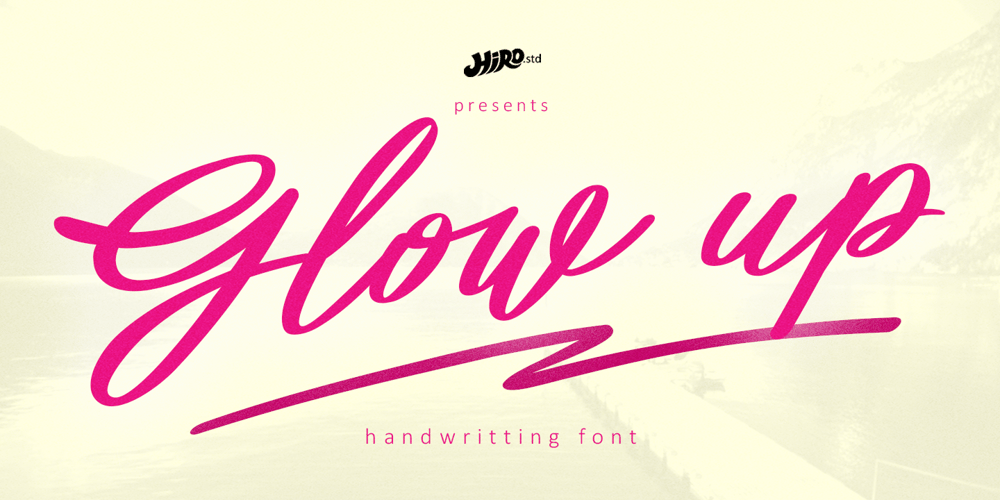
Glow up
Glow up font
Glow up Font Family was designed by Chairul Ashar and published by HIRO.std. Glow up contains 1 styles and family package options. Glow up is a handwritten font. This font describes about stylist, fun and elegant, catchy, girly, dynamic, simple, humanist, clean, easy to use and will bring a good harmony when the letters are connected and paired each other. FEATURES- Support Opentype Features- Support Ligatures- Alternate Swash – Numbering and Punctuations- PUA Encoded Characters- Multilingual Support- Works on PC or Mac USEGlow up works great in branding, logotype, packaging, apparel, and any projects that need simple taste. Enjoy using!Thanks. HIRO.std